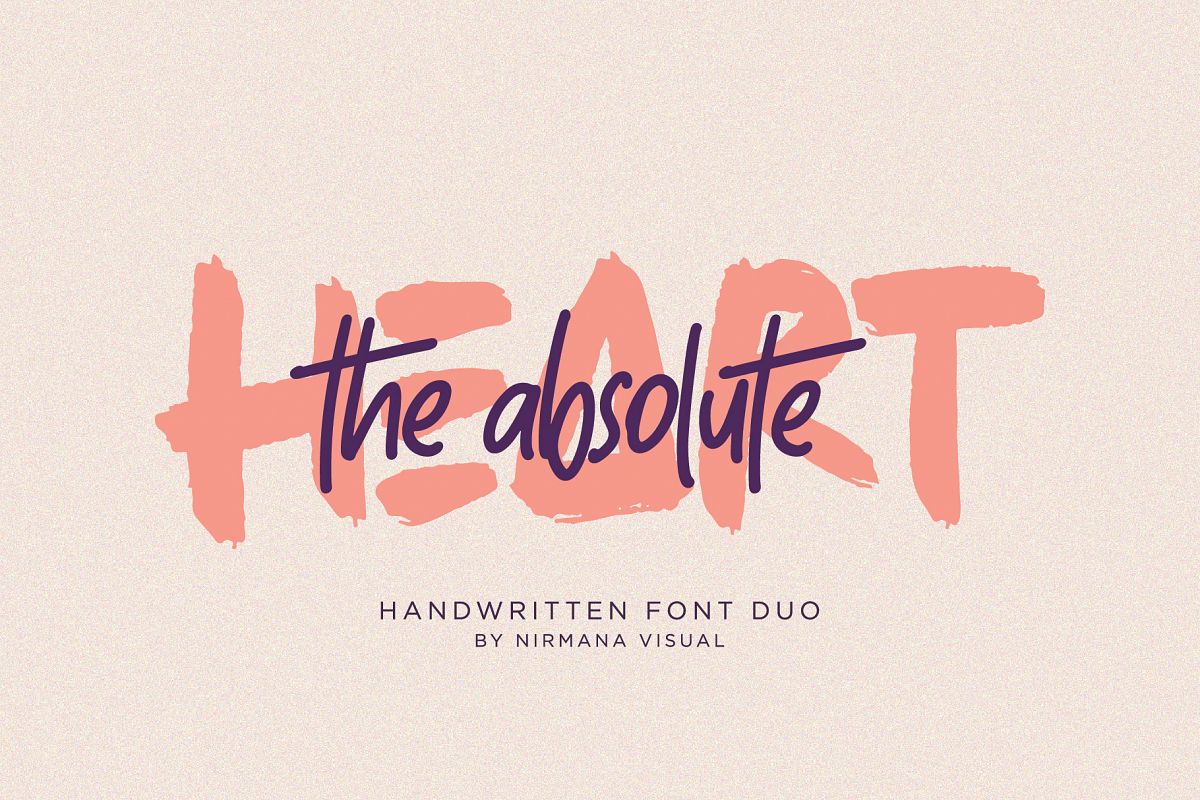
The Absolute - Font Duo
say hello for our best seller " The Absolute " with Natural Handwritten Artistic Style,
this is perfect for branding, logos, packaging, masterheads and more.
The Absolutes features :